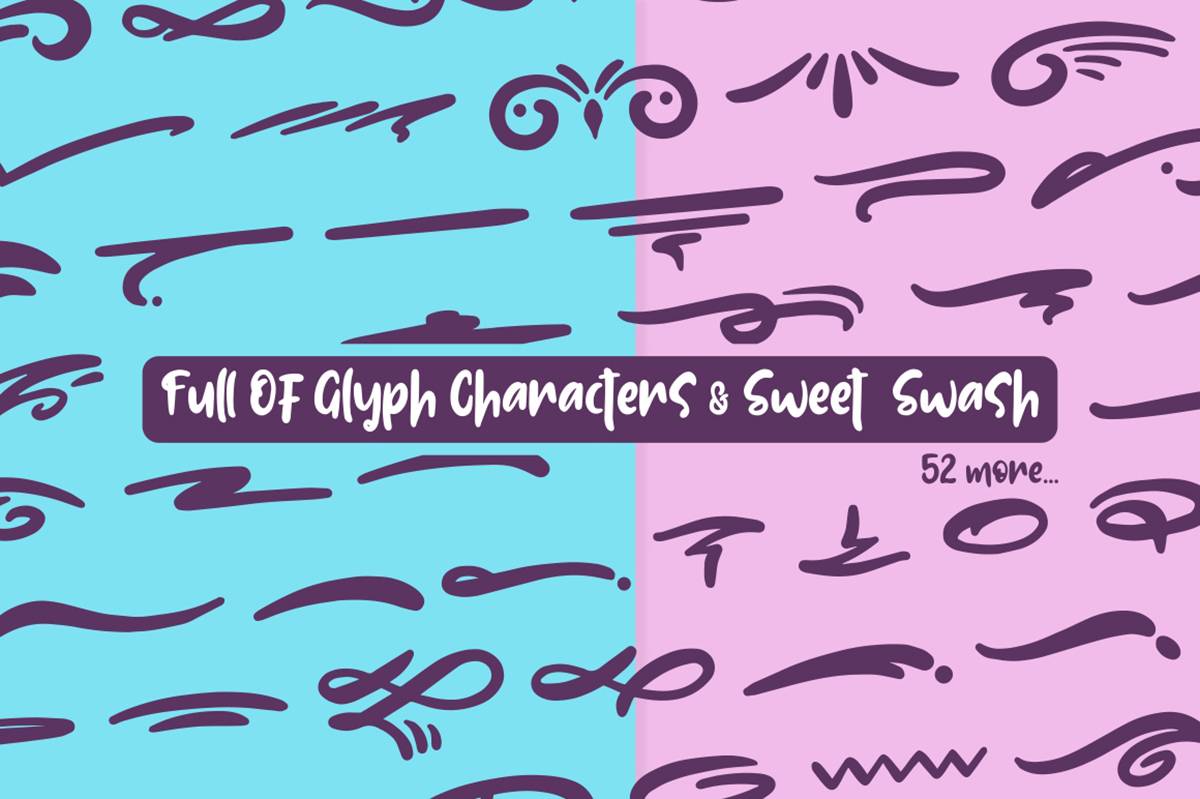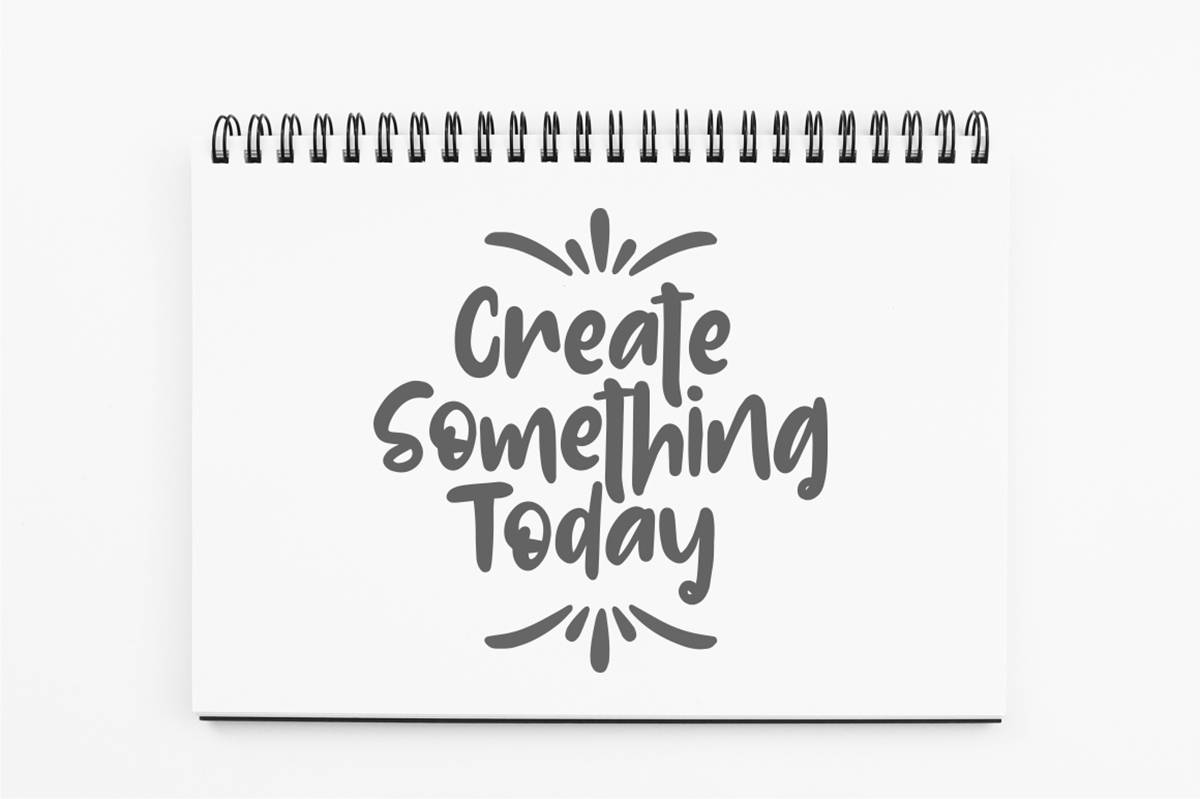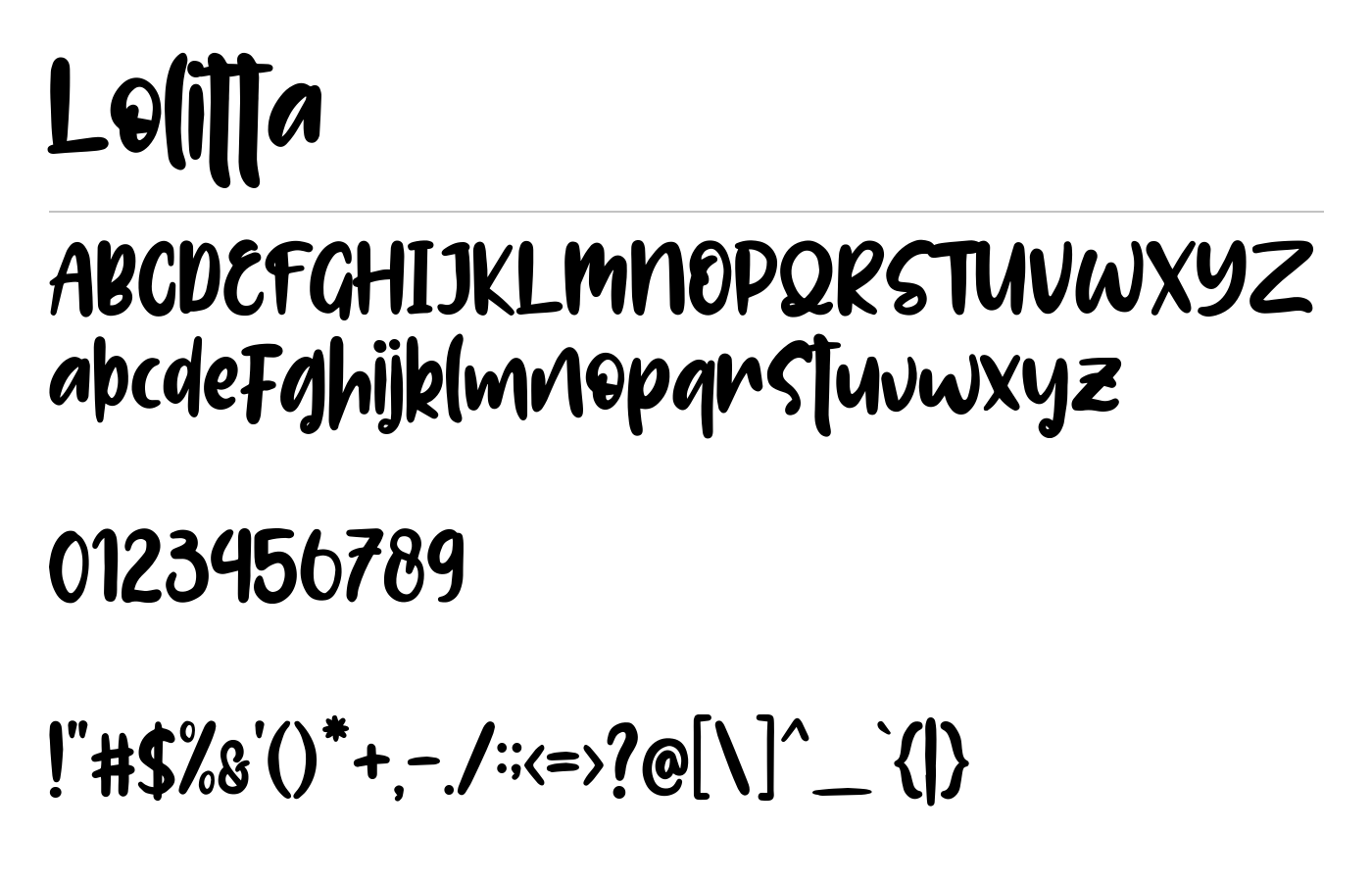
Lolitta is a bold, playful handwritten sans serif font with a casual, friendly vibe. Its rounded, slightly irregular letterforms and moderate x-height give it a warm, approachable feel, making it perfect for informal branding, invitations, kids’ products, or creative headlines that want to convey fun and personality. This font works best where a lively human touch is needed to engage and delight readers.
Lolitta Font
About Lolitta Font
| Font family | Lolitta Font |